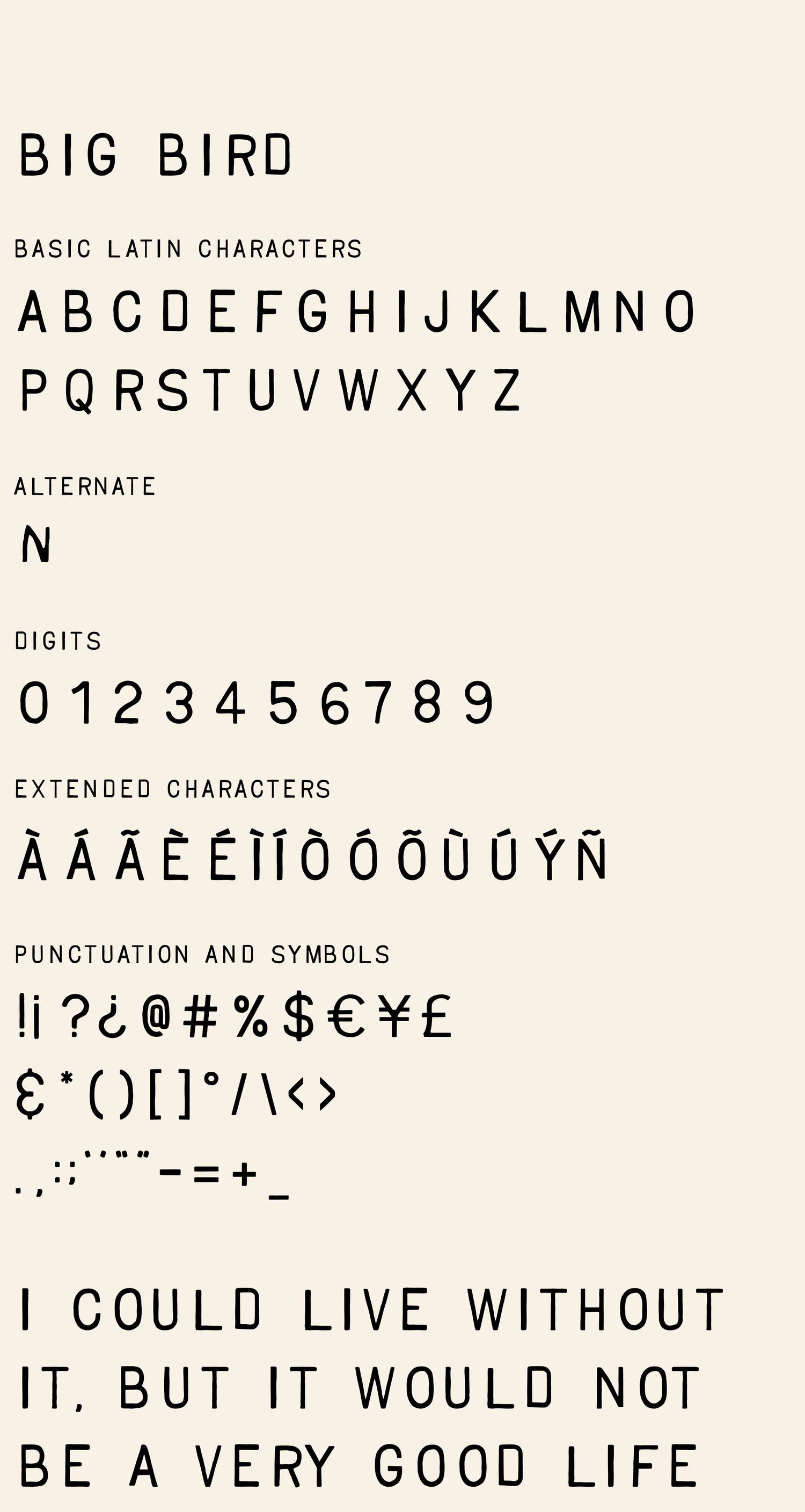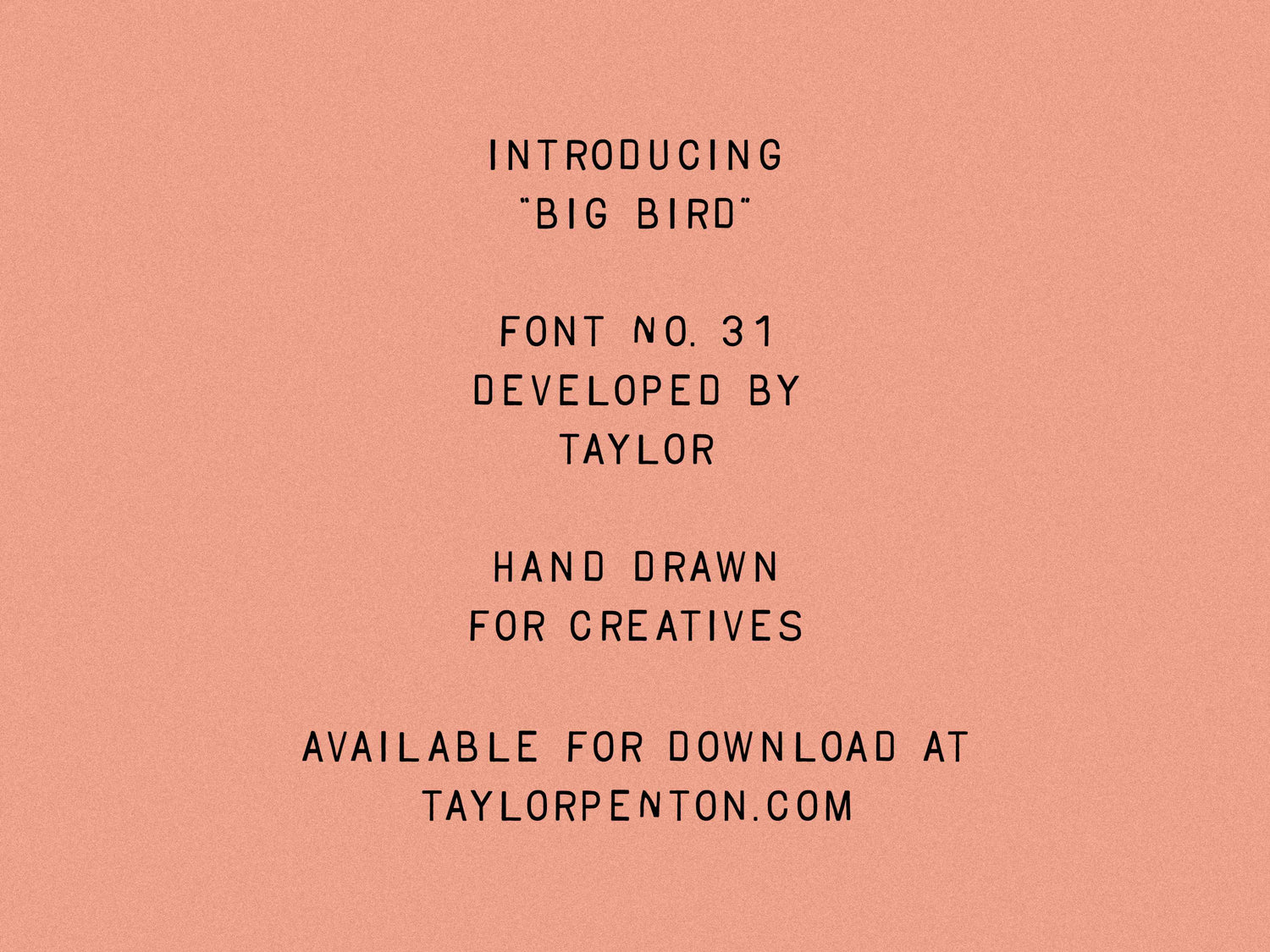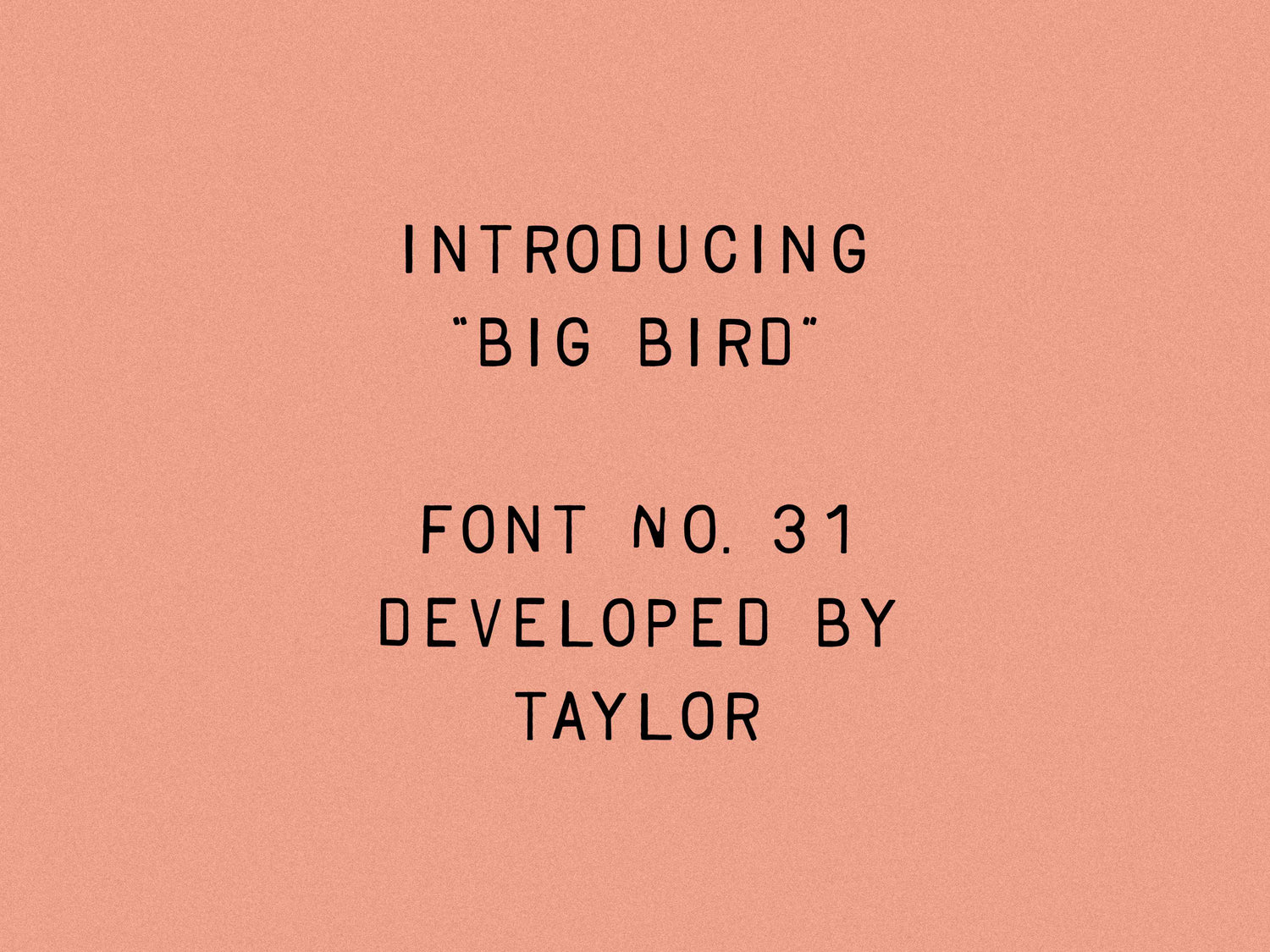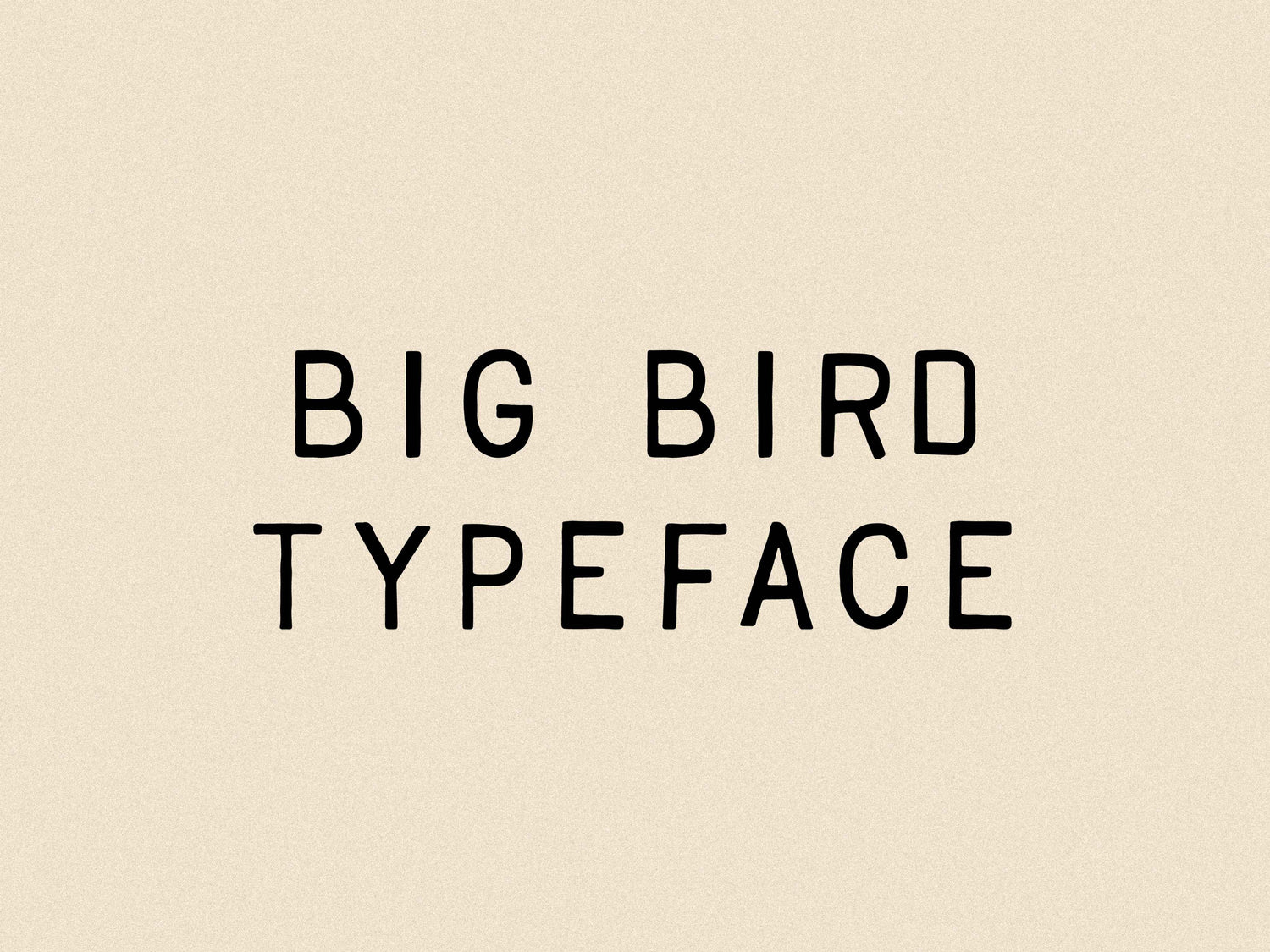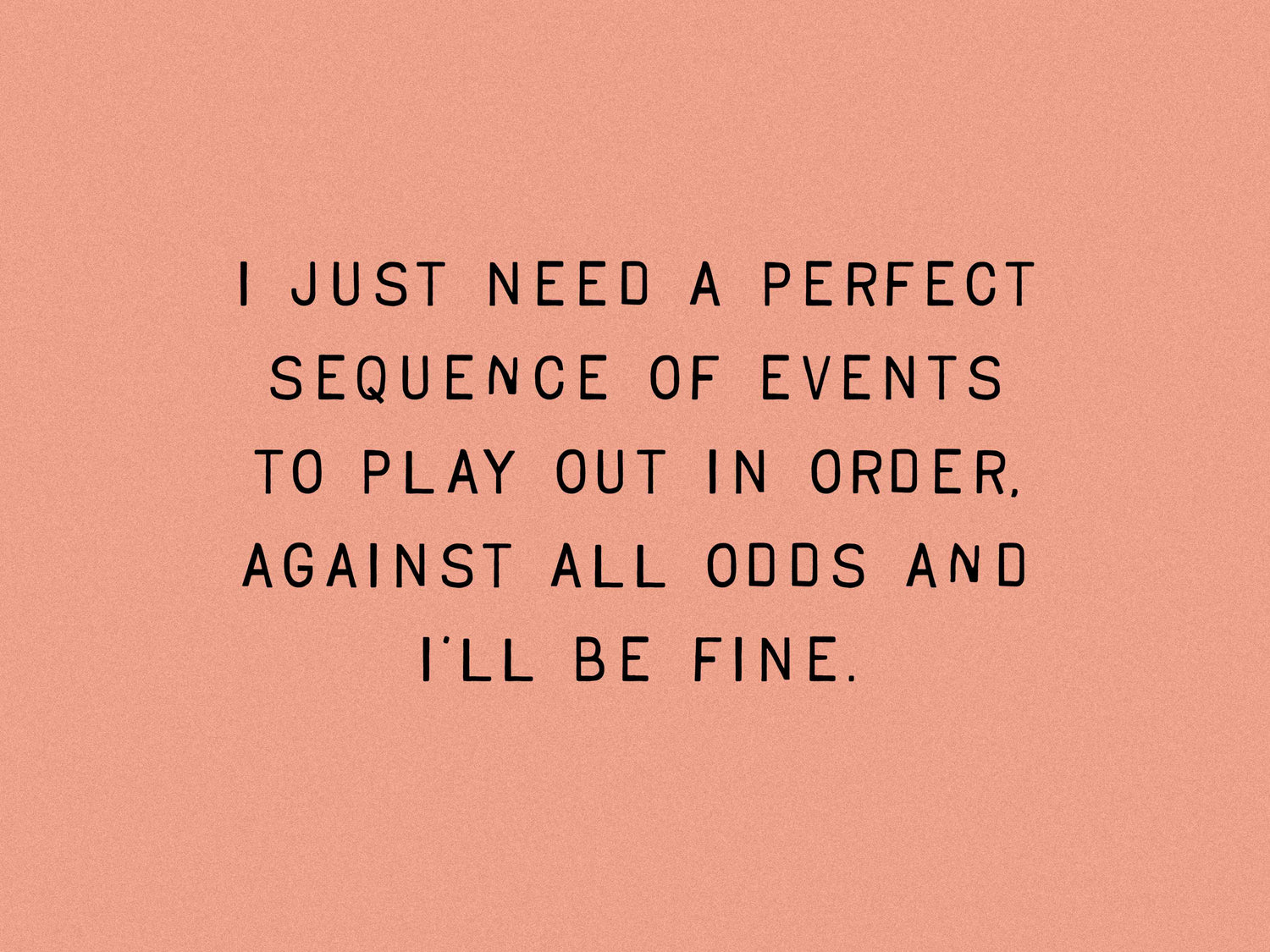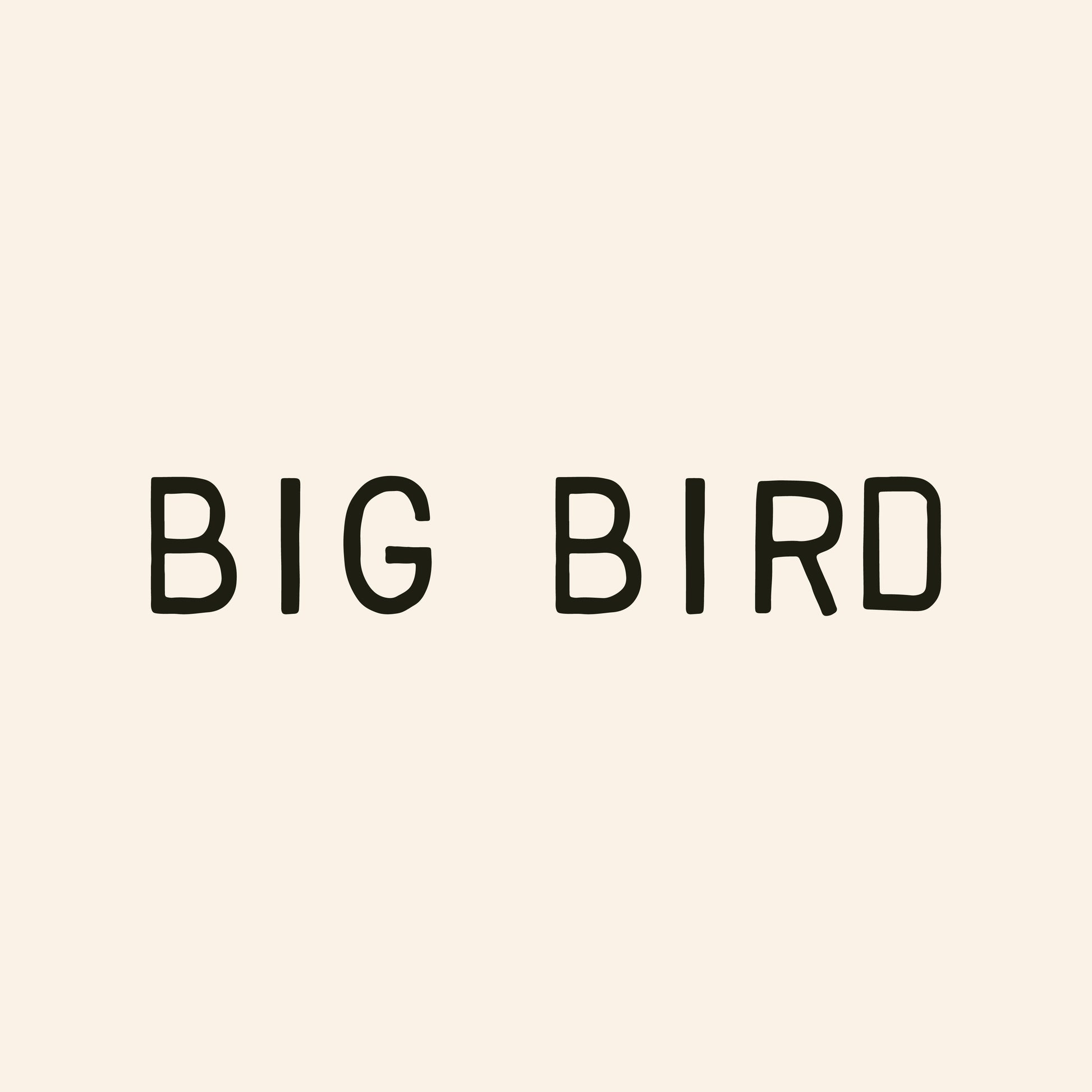
Big Bird
Inspired by Birdie but with a lighter hand,
Big Bird is a vintage-style stamp typeface, inspired by one of my first fonts Birdie. It’s loaded with hand-drawn traits and subtle inconsistencies. The applications are broad, but it will feel right at home, regardless of the use case.